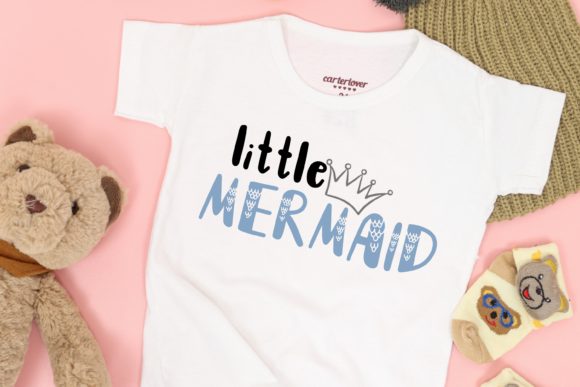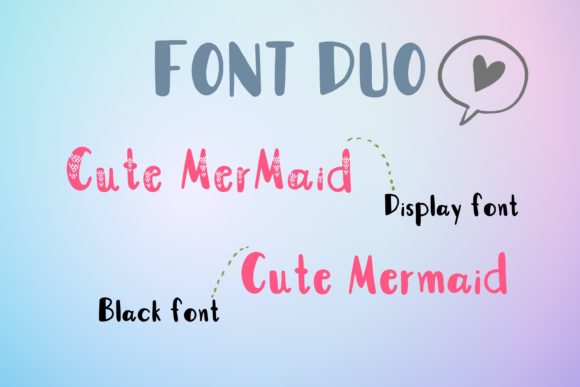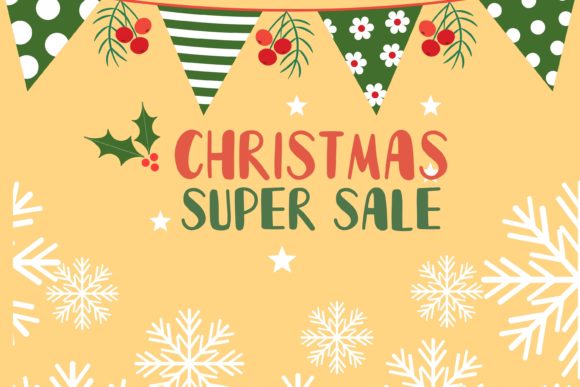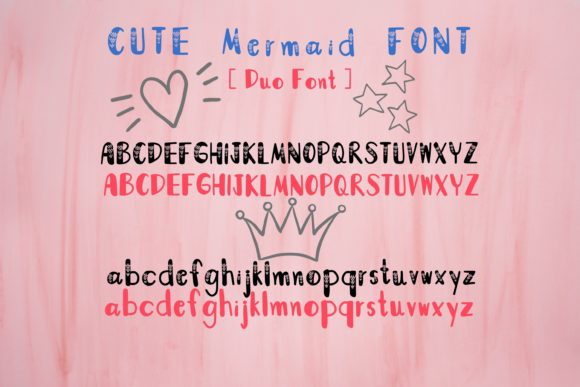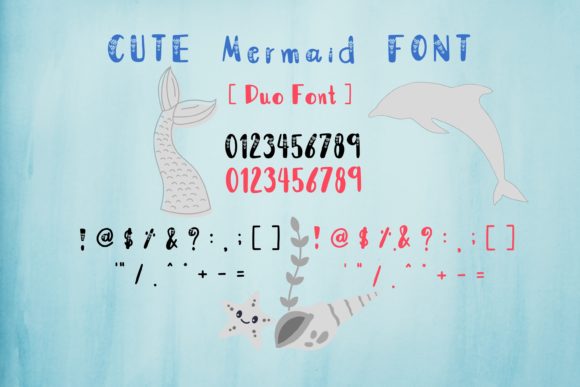
Introduction to Cute Mermaid Font
Cute Mermaid is a cute and colorful display font.
It embodies playfulness and authenticity and is the perfect choice for any childrenโs activity or school project .
Key Features of Cute Mermaid Font